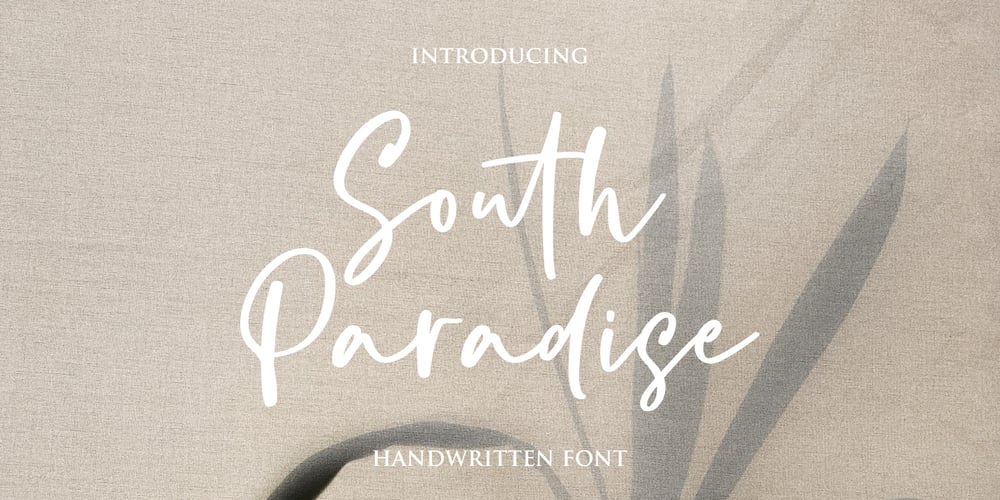
South Paradise Font Family was designed by Muhammad Fikry and published by Fikryal. South Paradise contains 1 styles and family package options. South Paradise is a beautiful script font perfect for crafting, branding, invitation, stationery, wedding designs, social media posts, advertisements, product packaging, product designs, label, photography, watermark, special events, or anything.South Paradise with a full set of uppercase and lowercase letters, ligatures, multilingual symbols, numerals, and punctuation.